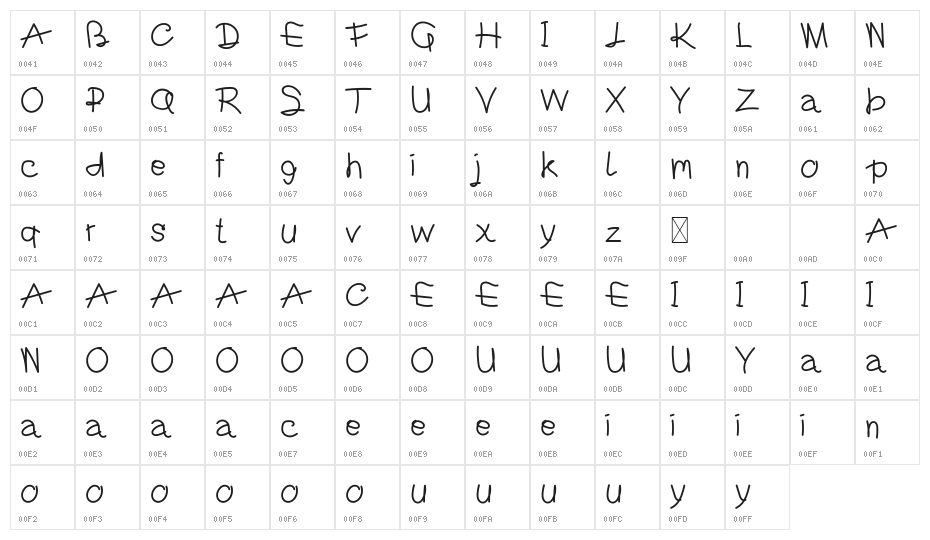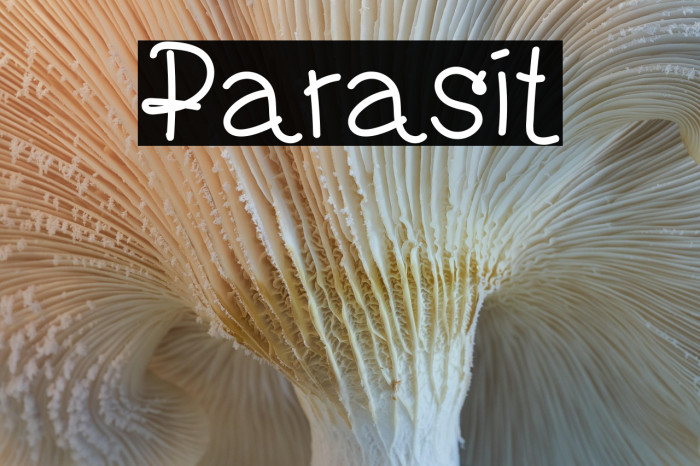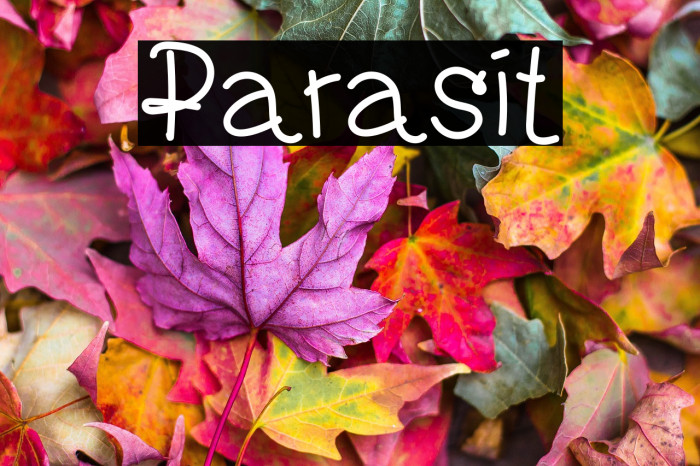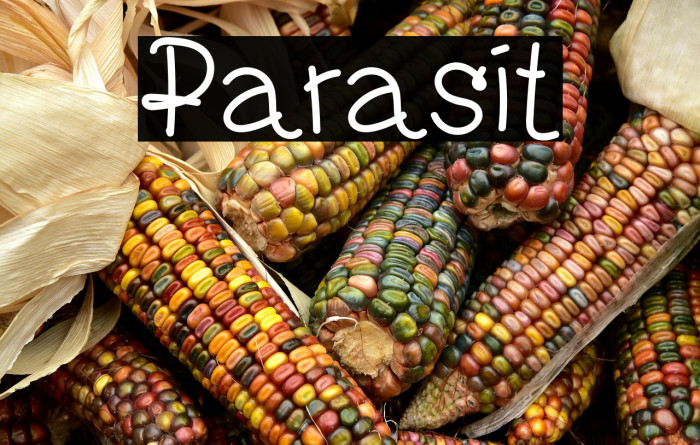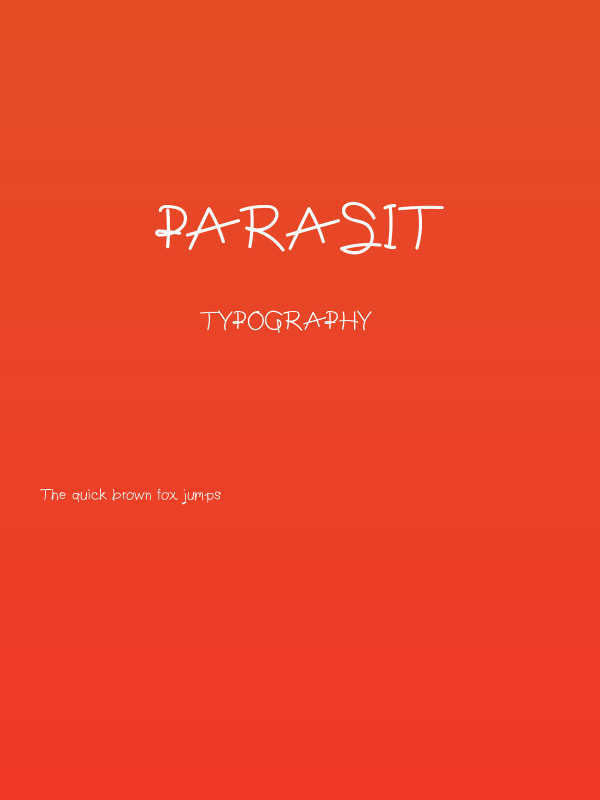
Parasit Font
Parasit Description
This playful and whimsical font features a handwritten style with a quirky, casual appearance. The letters are slightly irregular, giving it a unique and informal look. The strokes are smooth and rounded, with a consistent thickness throughout, adding to its approachable and friendly vibe. The font includes both uppercase and lowercase letters, as well as numbers and a selection of special characters. Its distinct style makes it suitable for creative and fun projects, where a personal touch is desired.